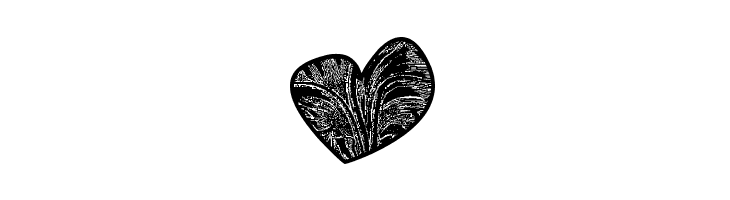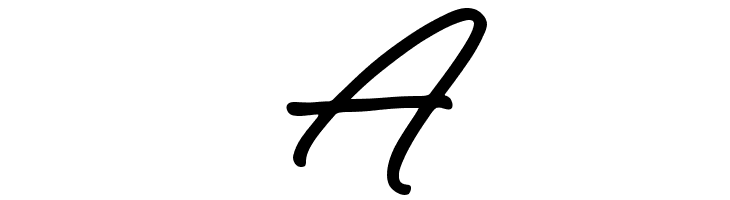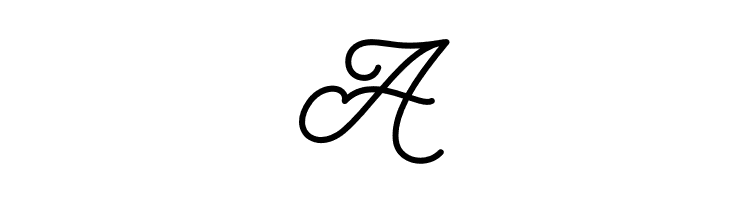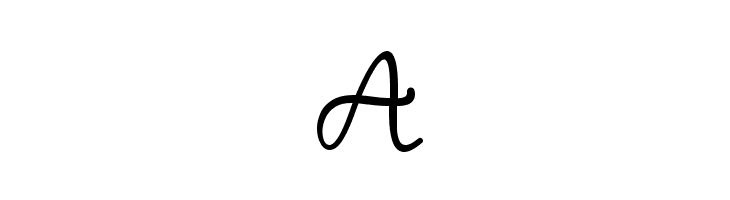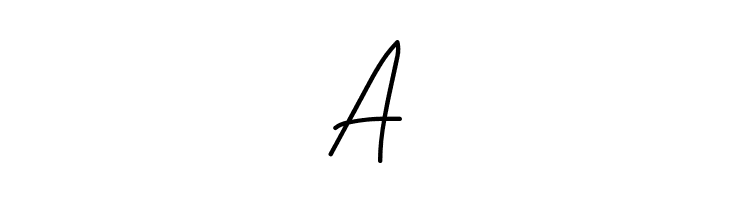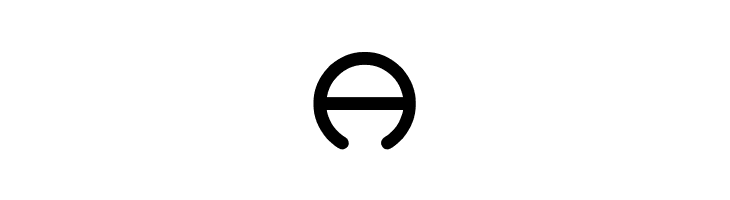
A whimsical collection of heart and flower motifs for romantic designs.
A decorative font with heart embellishments and a playful, modern style.
A diverse collection of heart-themed symbols with creative and artistic variations.
A diverse set of heart shapes with unique patterns and designs.
A decorative font with diverse heart shapes and playful designs.
A whimsical, heart-themed decorative font with a striped pattern.
A decorative font made entirely of heart shapes, perfect for romantic themes.
A playful, flowing script font with smooth, connected strokes.
A lively, expressive script font with a handwritten style.
A playful, heart-patterned decorative font with a whimsical and friendly style.
A playful, handwritten font with smooth, rounded edges and a friendly style.
An elegant script font with flowing cursive letters and intricate swashes.
A lively and dynamic script font with fluid, continuous strokes.
A fluid, handwritten-style font with smooth, flowing lines and natural curves.
A bold, dynamic brush script font with expressive strokes.
An artistic and edgy font with elongated serifs and dynamic curves.
A playful, handwritten-style font with bold strokes and a dynamic slant.
An elegant script font with flowing, cursive letterforms and a sophisticated style.
A playful, handwritten-style font with bold, rounded characters.
An elegant and flowing script font with a sophisticated cursive style.
An elegant, cursive font with a classic calligraphy style.
A futuristic, geometric font with circular motifs and bold strokes.
A futuristic and geometric font with smooth curves and a modern aesthetic.
A lively handwritten font with dynamic strokes and a casual style.
A fluid and elegant script font with smooth, flowing lines.
A bold, cursive font with dynamic brush strokes and expressive style.
A bold, textured font with a dynamic, modern design.
A dynamic and expressive script font with fluid, interconnected strokes.
A bold, cursive script font with a fluid, handwritten style.
A dynamic, cursive script font with fluid, interconnected strokes.
An elegant script font with flowing, cursive style and intricate swashes.
An elegant script font with flowing lines and intricate swashes, perfect for luxurious designs.
An elegant script font with graceful, flowing lines and a sophisticated style.
A bold, textured font with a hand-drawn, artistic style.
A whimsical and artistic font with tall, narrow letterforms and playful strokes.